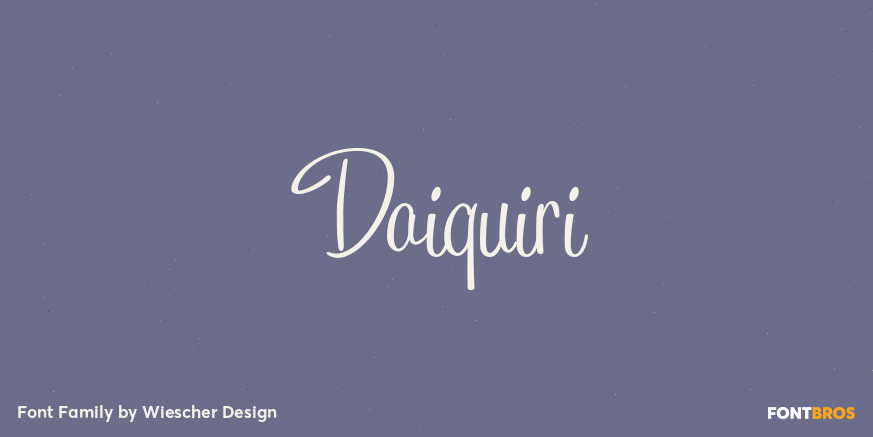
Daiquiri
About Daiquiri
Daiquiri is a revival of a handlettered font in two weights, from an ad for Puerto Rico Rum dating back to the forties or fifties. I found the ad on a French antique market on my last visit for Mardi Gras in Nice. The ad read ?Breeze through the heat,…